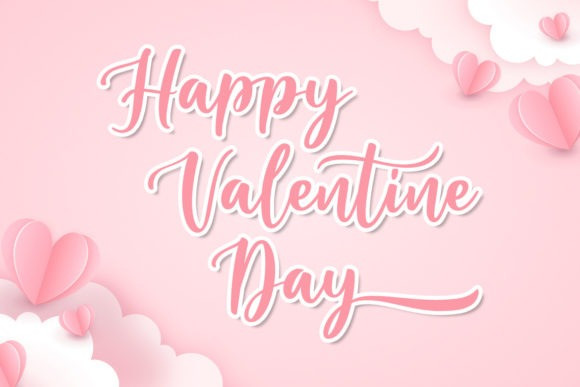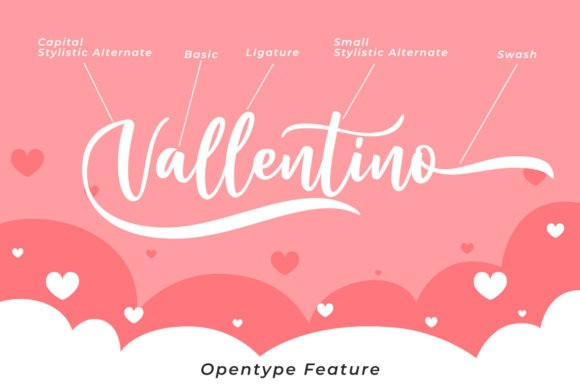
Special Romance Font
Special Romance Font is a lovely and timeless handwritten font. It is the best choice for creating eye catching logos, branding and quotes. This font is PUA encoded which means you can access all of the glyphs and swashes with ease!